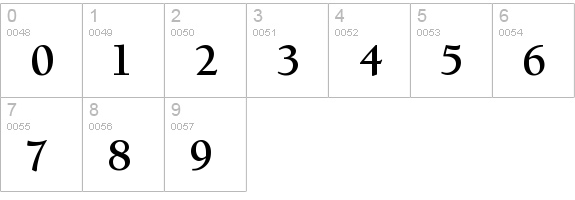
Berkeley Oldstyle Bold Font Details
Berkeley Oldstyle Bold is a strong, high-contrast variant in the Berkeley typeface family \xE2\x80\x94 well suited to headlines, attention-grabbing titles, and strong calls-to-action.
Berkeley Oldstyle Bold font is a timeless and elegant typeface that exudes a sense of traditional sophistication. With its classic serifs and strong, bold weight, this font is perfect for making a statement in headlines, titles, and logos. The design of Berkeley Oldstyle Bold strikes an ideal balance between readability and character, making it a versatile choice for a wide range of design projects. What sets Berkeley Oldstyle Bold font apart is not just its stunning aesthetics, but also its accessibility. This premium font is available for free download at FontsMarket.com, giving designers and creatives the opportunity to enhance their work with a high-quality typeface without breaking the bank. Whether you're working on a branding project, editorial design, or any other creative endeavor, Berkeley Oldstyle Bold font is sure to bring a touch of sophistication and style to your work.